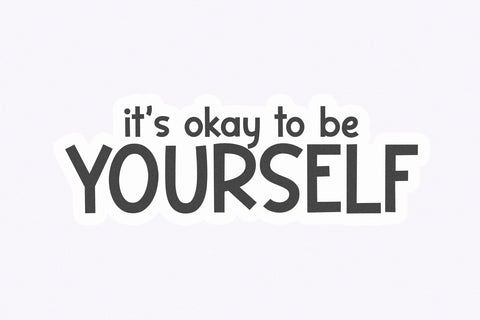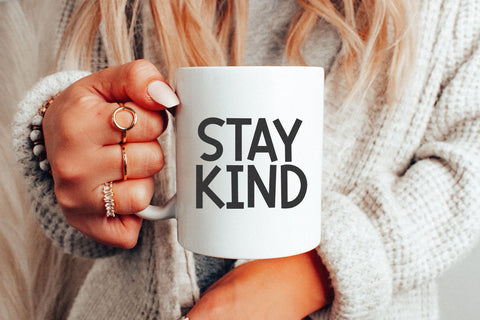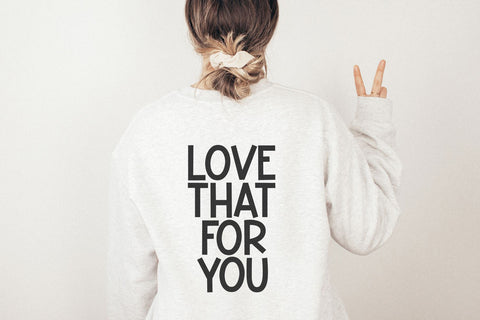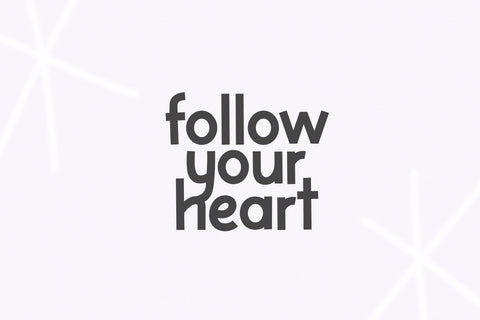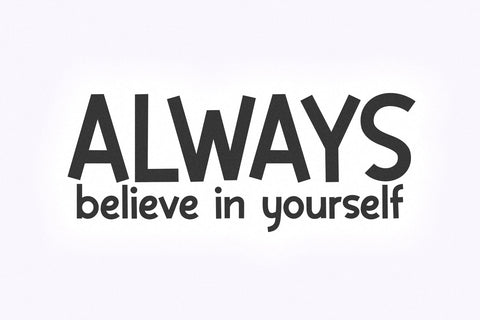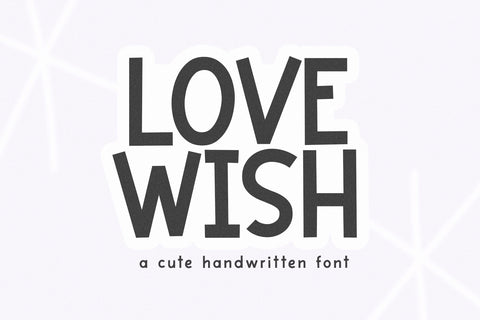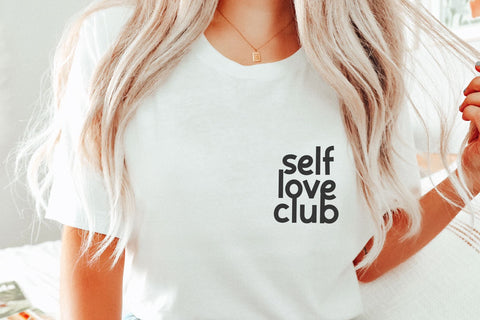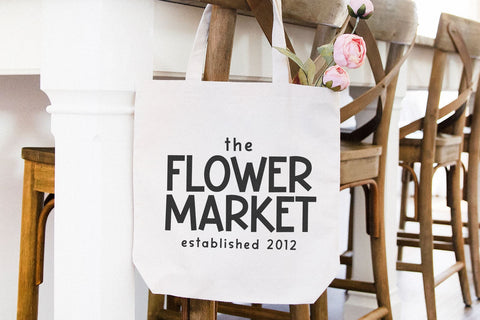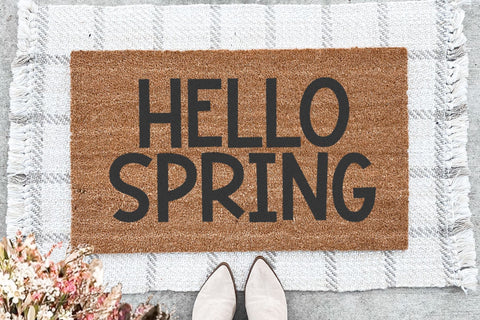
Lovewish - Fun Handwritten Font
Lovewish is a fun handwritten font!
This font is perfect for your craft projects, svg designs, shirts, mugs, teachers, procreate, stickers, logos and more!